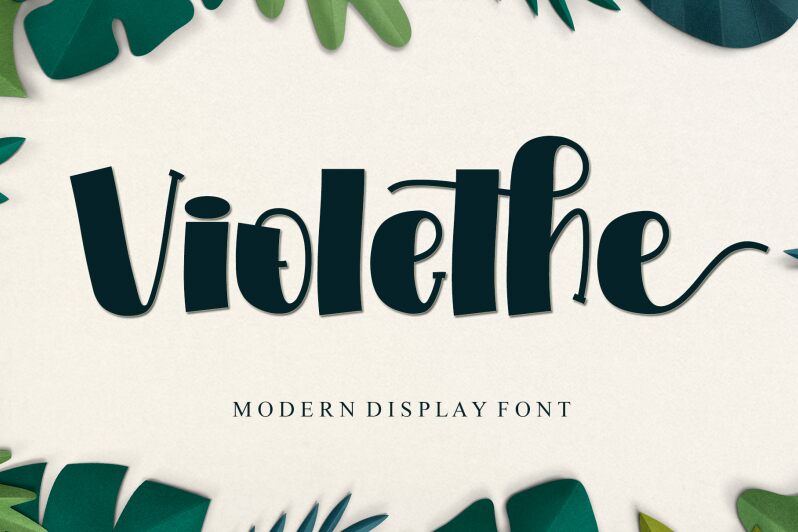
Violethe, the display font designed by Letterafa Studio, exudes a sense of strength and power with its extra-bold weight. Its unique style is perfect for projects looking to make a bold statement, such as event posters, album covers, and branding materials for edgy fashion or lifestyle brands. With its sharp edges and distinctive curves, Violethe demands attention and makes a lasting impression. This font is not for the faint of heart - it's for those who want to stand out from the crowd and leave a lasting impact on their audience.